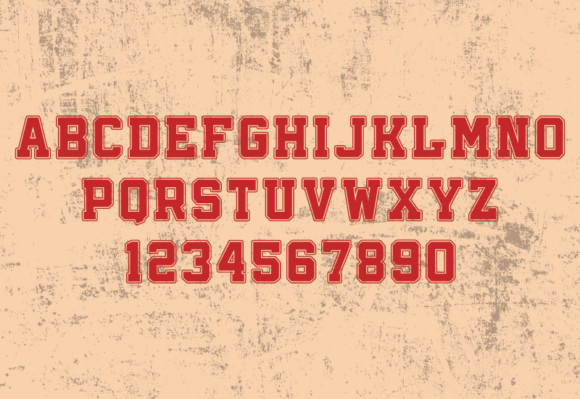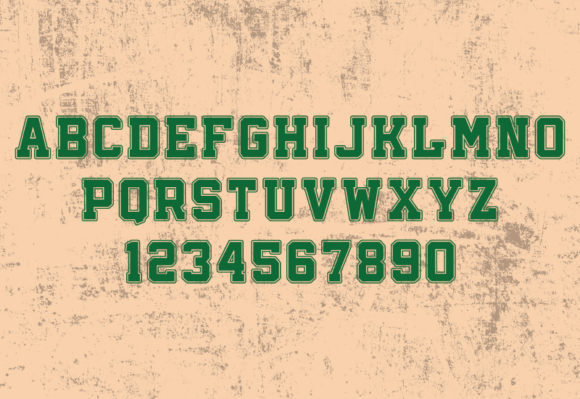
Introduction to Chicago Black Font
Chicago Black is a simple Western-style serif font designed for a clean retro look.
With its vintage balanced proportions, this font is perfect for creating a minimalist aesthetic in logos, web design, and branding .
Key Features of Chicago Black Font
Why Choose Chicago Black Font?
Chicago Black Font offers exceptional quality and versatility, making it a valuable addition to your design toolkit. Whether you’re creating for personal projects or commercial use, Chicago Black Font delivers professional results.